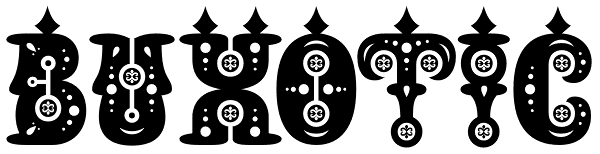
Buxotic
Buxotic may be considered by some to be too hot for viewing by a general audience. Only use Buxotic after 10 PM and never on Sundays. You have been warned.